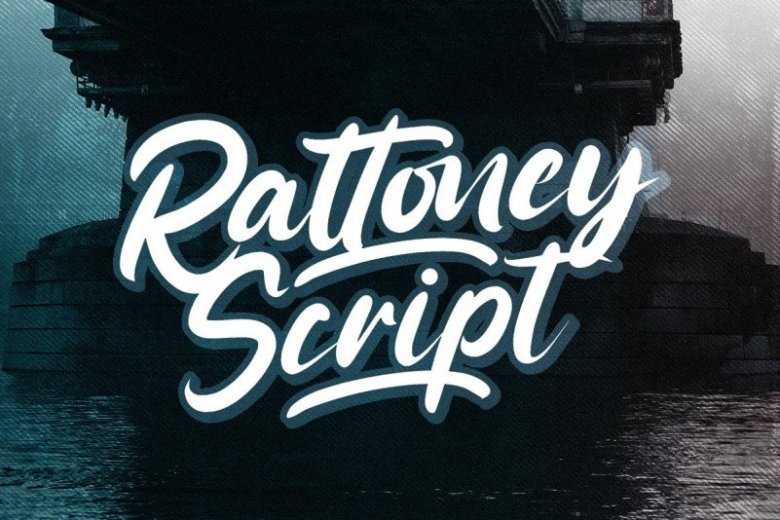
Rattoney Font
An enchanting bold handwritten typeface manufactured by StringLabs. It is curved, rounded, and has an unique vintage style, that is perfect for branding. Add it to your most creative ideas and notice how it makes them come alive!